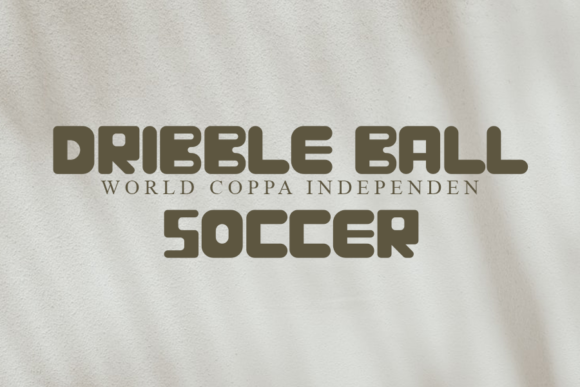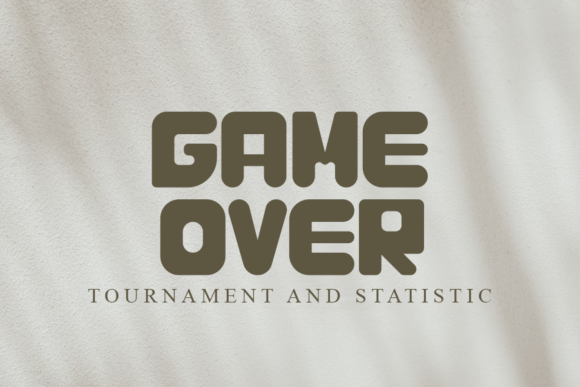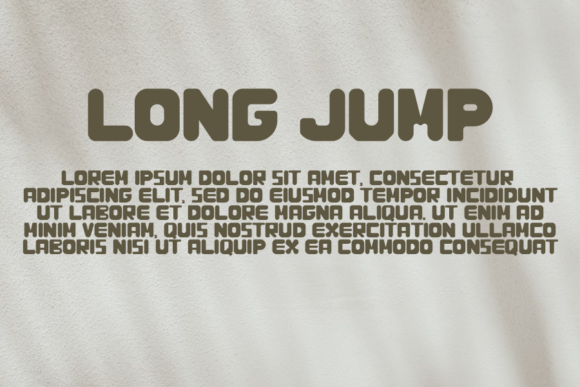
Introducing Bold Line Font: The Perfect Blend of Clean and Quirky
In the world of typography, a font can make all the difference in the success of a design project. Whether you’re a professional designer or a crafty DIY enthusiast, finding the right font can be a daunting task. That’s why we’re excited to introduce Bold Line Font, a unique display font that’s clean, quirky, and perfect for a variety of applications.
What is Bold Line Font?
Bold Line Font is a distinctive display font that’s designed to make a statement. Its clean lines and subtle quirks make it an ideal choice for logos, branding, social media graphics, and crafty DIY projects. This font is perfect for those who want to add a touch of personality to their designs without sacrificing legibility.
Key Features of Bold Line Font
- Clean and Modern Design: Bold Line Font features clean lines and a modern aesthetic that’s perfect for designs that require a touch of sophistication.
- Quirky and Playful: The font’s subtle quirks and irregularities add a playful touch that’s sure to make your designs stand out.
- Highly Legible: Despite its unique design, Bold Line Font remains highly legible, making it perfect for use in a variety of applications.
- Versatile: This font can be used for a wide range of projects, from logos and branding to social media graphics and crafty DIY projects.
Use Cases for Bold Line Font
Bold Line Font is an incredibly versatile font that can be used in a variety of applications. Here are some use cases to get you started:
- Logos and Branding: Create a unique and memorable logo that stands out from the crowd with Bold Line Font.
- Social Media Graphics: Add a touch of personality to your social media graphics, including Facebook posts, Twitter headers, and Instagram stories.
- Crafty DIY Projects: Use Bold Line Font to add a personal touch to your crafty DIY projects, such as handmade cards, gift tags, and scrapbooking.
- Signage and Posters: Create eye-catching signage and posters that grab attention with Bold Line Font.
Why Choose Bold Line Font?
With so many fonts available, why choose Bold Line Font? Here are just a few reasons why this font stands out:
- Unique Design: Bold Line Font features a unique design that’s sure to make your designs stand out.
- Easy to Use: This font is incredibly easy to use, even for those who are new to design.
- High-Quality: Bold Line Font is a high-quality font that’s designed to produce crisp, clear results.
Tips for Using Bold Line Font
Here are a few tips for getting the most out of Bold Line Font:
- Experiment with Colors: Try pairing Bold Line Font with a variety of colors to create a unique and eye-catching design.
- Play with Size: Experiment with different font sizes to create visual interest and hierarchy in your design.
- Add Texture and Patterns: Consider adding texture and patterns to your design to give it an extra layer of depth and interest.
Bold Line Font is a unique and versatile display font that’s perfect for a variety of applications. Its clean lines, quirky design, and high legibility make it an ideal choice for logos, branding, social media graphics, and crafty DIY projects. Whether you’re a professional designer or a crafty DIY enthusiast, Bold Line Font is sure to become a go-to font in your collection.